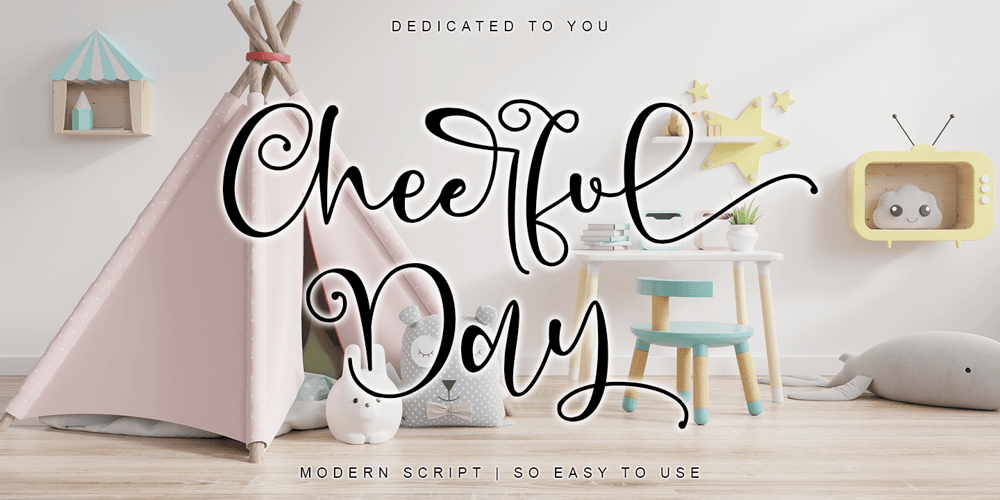
Cheerful Day
Cheerful Day font
Cheerful Day Font Family was designed by Thomas Aradea and published by Letterara. Cheerful Day contains 3 styles and family package options. Cheerful Day is a cute and casual handwritten font with an incredibly friendly feel. It features gorgeous swashes and ligatures that make this script incredibly versatile. Whether you’re looking for fonts for Instagram or calligraphy scripts for DIY projects, Cheerful Day will turn any creative idea into a true piece of art! Fall in love with this font and bring your projects to the highest levels! This font is PUA encoded which means you can access all of the glyphs and swashes with ease! It features a varying baseline, gorgeous glyphs, and stunning alternates.